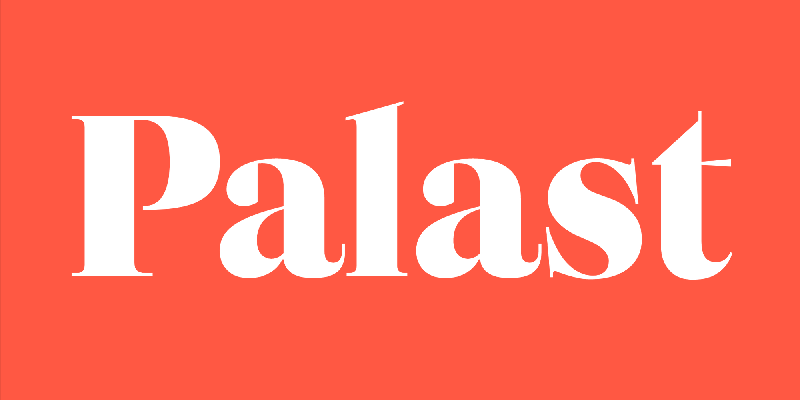
Palast Variable Font Free Download is a sleek and sophisticated serif typeface with a modern, clean design. Known for its strong presence and flexibility, this font is ideal for high-end branding, editorial design, luxury packaging, and any project that requires both elegance and readability. The font offers adjustable weights, allowing you to tailor it to your design needs, whether you want a light, elegant look or a bold, commanding presence.
The Palast Variable Font is perfect for both display and body text, thanks to its versatile design and high legibility. Its carefully crafted letterforms balance classic and contemporary elements, making it suitable for a wide range of creative projects.